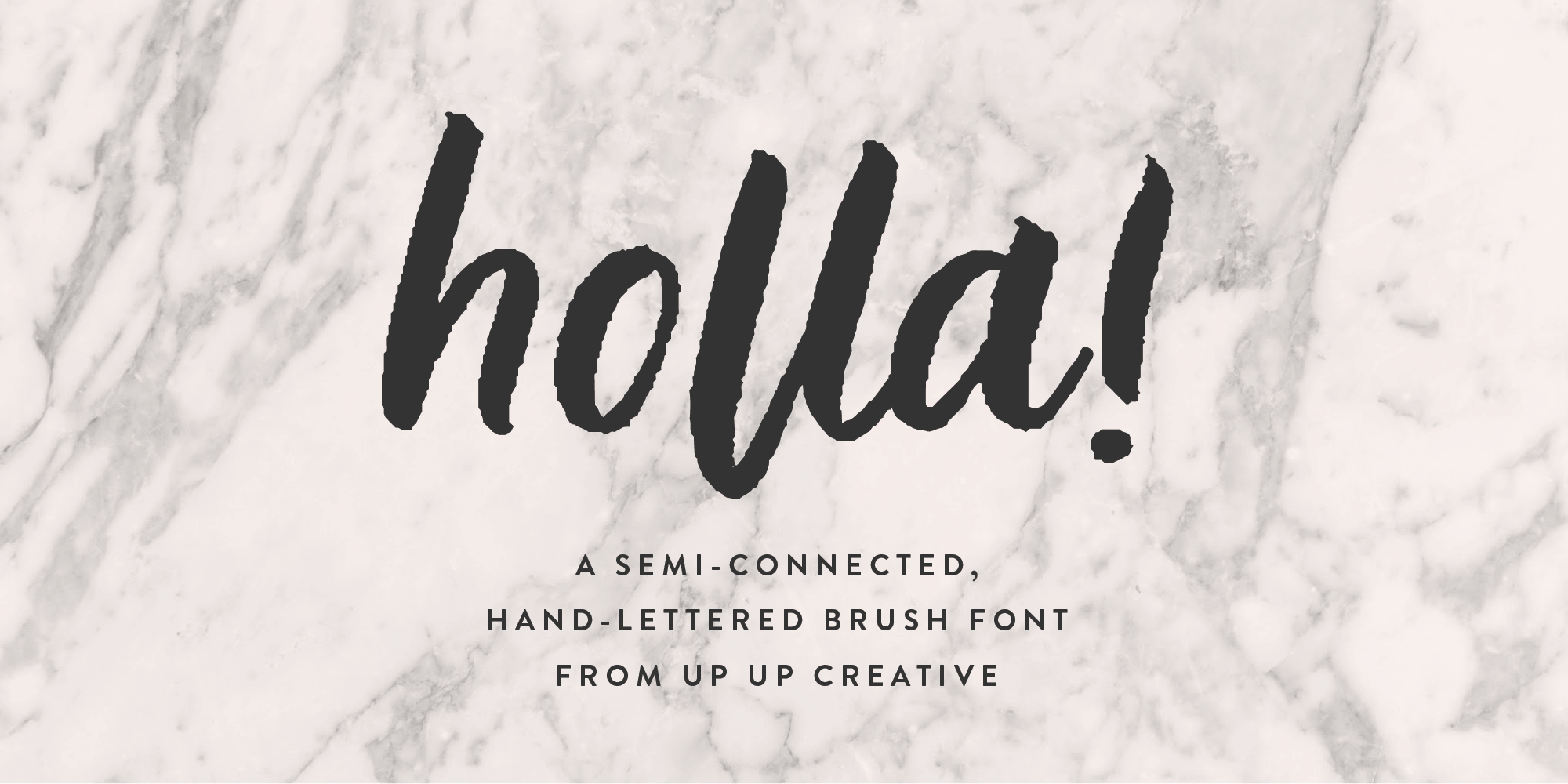
Holla Font showcases exceptional versatility across vibrant design applications including energetic logo creation, youthful brand identity, dynamic social media graphics, trendy packaging design, casual advertising campaigns, fun event materials, modern web typography, lifestyle magazine layouts, creative poster designs, contemporary signage, upbeat marketing communications, and engaging digital content. This lively typeface delivers outstanding performance in both digital and print environments, making it the ideal choice for brands and designers who need to convey energy, friendliness, and contemporary appeal in their visual communications.
What makes Holla Font Free Download truly exciting is its perfect combination of modern casualness with professional functionality that creates an instantly approachable and memorable visual identity. The font features dynamically designed letterforms with friendly proportions, contemporary styling, and energetic character that captures the essence of modern communication trends while maintaining excellent readability across all applications. Its casual yet polished aesthetic incorporates subtle playful elements and optimized spacing that make it suitable for both professional business communications and creative lifestyle projects. The font's vibrant personality transforms standard content into engaging communications that connect authentically with contemporary audiences.
The Holla Font family typically encompasses multiple weight variations including light, regular, medium, bold, and black, often complemented by corresponding italic styles and potential condensed versions. Each weight maintains the core friendly design philosophy while offering different levels of visual emphasis and typographic hierarchy. The comprehensive character set supports extensive language coverage and includes essential punctuation marks, numerals, currency symbols, and special characters, providing designers with complete flexibility to create cohesive contemporary typographic systems that maintain visual consistency across diverse international markets and digital platforms.
Whether you're developing modern brand identity, creating engaging social media content, or designing contemporary marketing materials, Holla Font Free Download provides the typographic energy necessary for producing memorable and connection-driven designs. Its friendly character and versatile nature make it an essential addition to any designer's font collection, offering unlimited creative possibilities while maintaining the highest standards of contemporary appeal, readability, and visual engagement in today's fast-paced communication landscape.